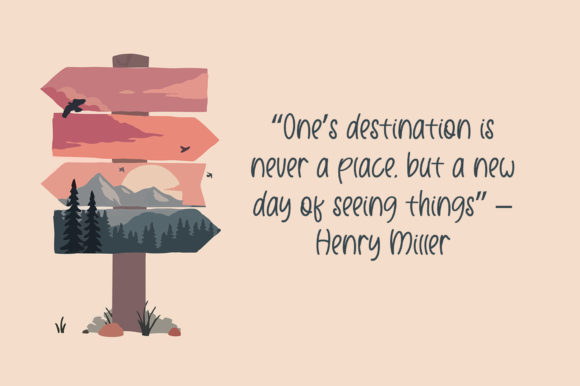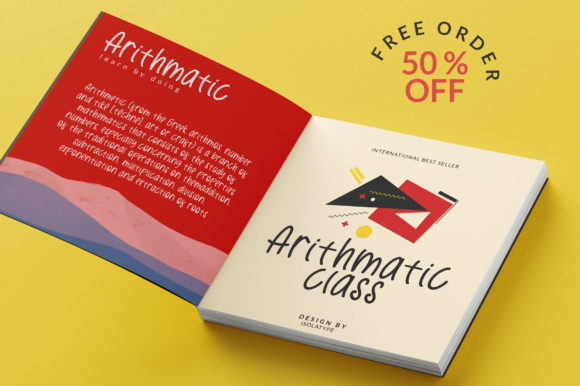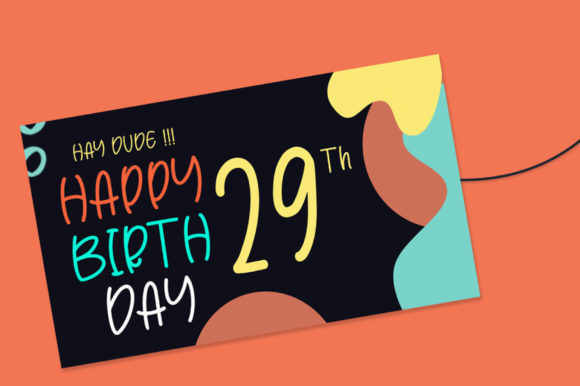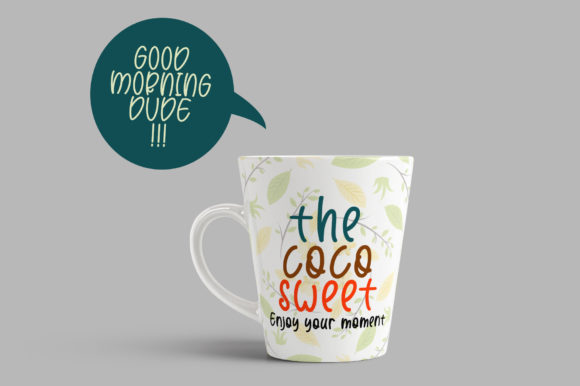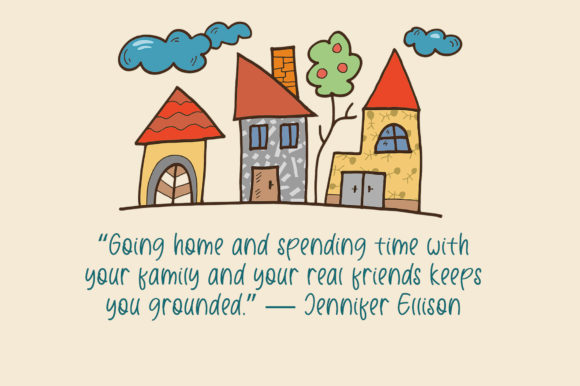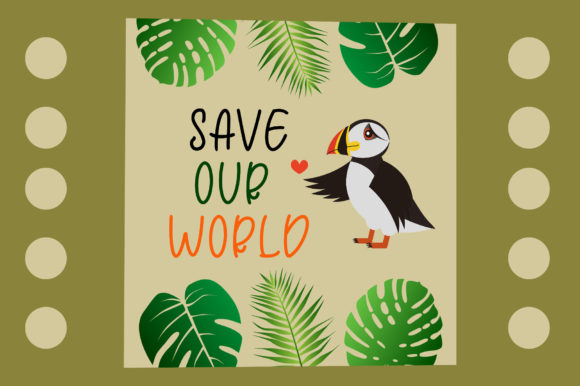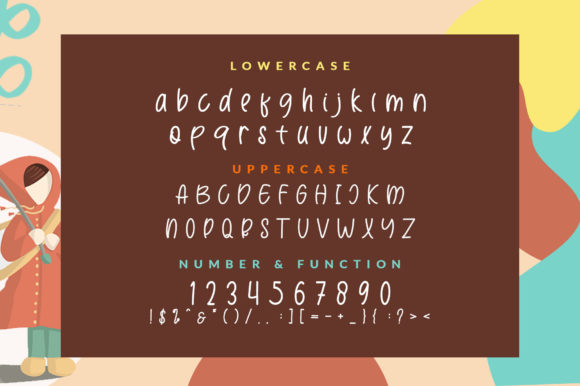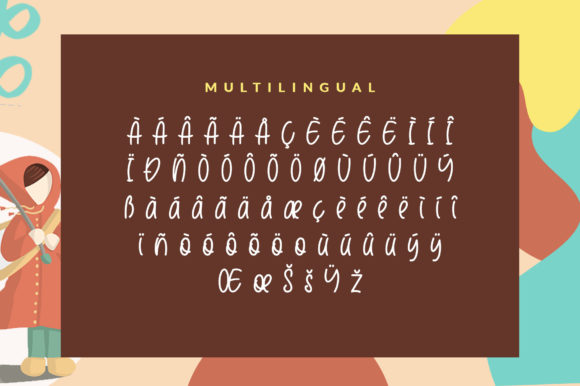
Simple Glory Font
About Simple Glory Font
Simple Glory is a relaxed and playful handwritten font. Its informal style and casual vibe will make this font a go-to choice for each of the creations that require a relaxed touch.